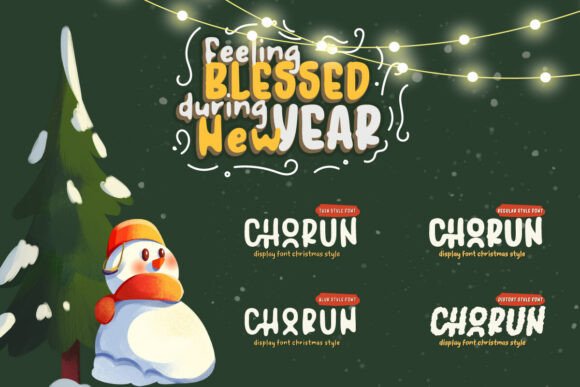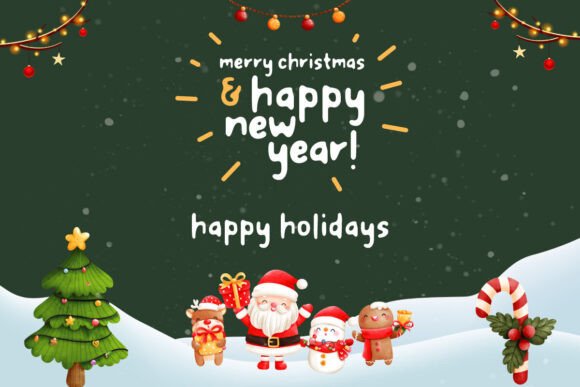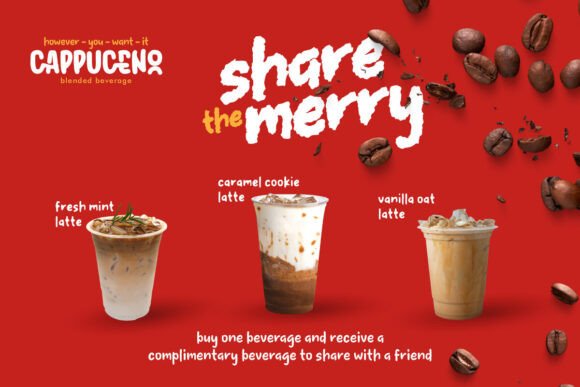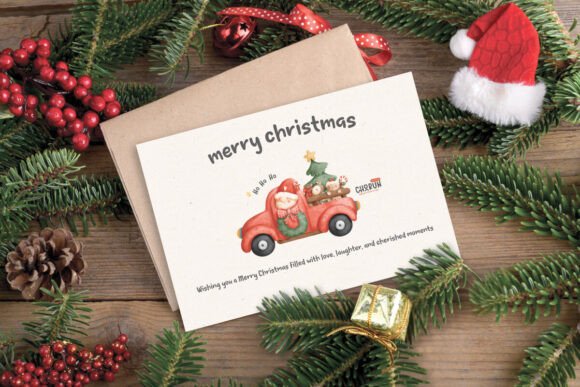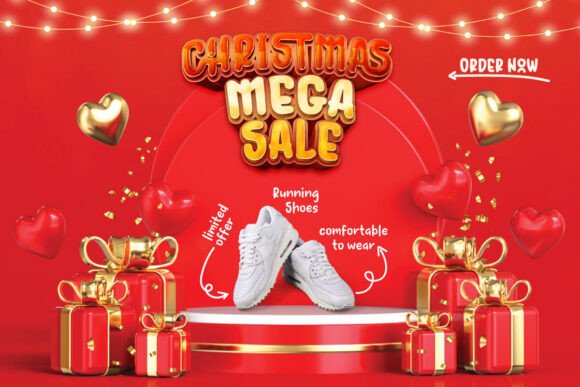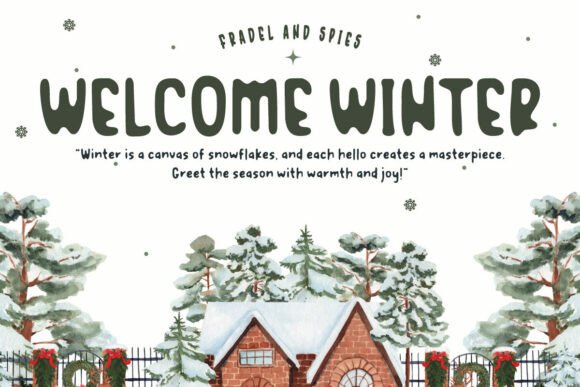
Introducing Chorun: The Joyful Christmas Display Font for Your Holiday Designs
Are you looking for a font that captures the warmth and sparkle of the holiday season? Look no further than Chorun, the charming Christmas display font that’s perfect for bringing a cozy, festive touch to your designs. With its handcrafted style and lively, decorative look, Chorun is ideal for designers and crafters who want to add a dash of Christmas spirit to their projects.
What Makes Chorun Special?
Chorun is more than just a font – it’s a way to evoke the magic of the holiday season in your designs. Its charming, handcrafted style is reminiscent of traditional Christmas decorations, with a modern twist that makes it perfect for a wide range of applications. Whether you’re designing Christmas greeting cards, winter festival posters, or holiday party invitations, Chorun is the perfect choice.
Ideal Uses for Chorun
So, what can you use Chorun for? The possibilities are endless! Here are some ideas to get you started:
- Christmas greeting cards: Add a personal touch to your holiday cards with Chorun’s charming, handwritten style.
- Winter festival posters: Create eye-catching posters for winter festivals, markets, or events with Chorun’s bold, festive font.
- Holiday party invitations: Invite friends and family to your holiday party with Chorun’s fun, playful style.
- Seasonal merchandise designs: Add a touch of holiday cheer to your merchandise designs, from t-shirts to mugs, with Chorun’s lively font.
- Festive event logos: Create a memorable logo for your holiday event or campaign with Chorun’s unique, decorative style.
Why Choose Chorun?
So, why choose Chorun for your holiday designs? Here are just a few reasons:
- Warmth and coziness: Chorun’s handcrafted style evokes the warmth and coziness of the holiday season, making it perfect for designs that need to feel inviting and welcoming.
- Festive and fun: Chorun’s lively, decorative look is guaranteed to add a dash of Christmas spirit to any project, making it perfect for designers who want to create festive and fun designs.
- Versatility: Chorun is a versatile font that can be used for a wide range of applications, from digital designs to print materials.
How to Use Chorun in Your Designs
Using Chorun in your designs is easy! Here are a few tips to get you started:
- Pair with complementary fonts: Pair Chorun with complementary fonts to create a unique and visually appealing design.
- Experiment with colors: Chorun looks great in a range of colors, from traditional Christmas red and green to metallic gold and silver.
- Add festive graphics: Add festive graphics, such as holly or snowflakes, to your design to really make it pop.
Chorun is the perfect font for designers and crafters who want to add a touch of holiday cheer to their designs. With its charming, handcrafted style and lively, decorative look, Chorun is ideal for a wide range of applications, from Christmas greeting cards to festive event logos. So why wait? Download Chorun today and let your creativity shine brighter than ever!
Let every holiday project feel like Christmas morning – design with Chorun!